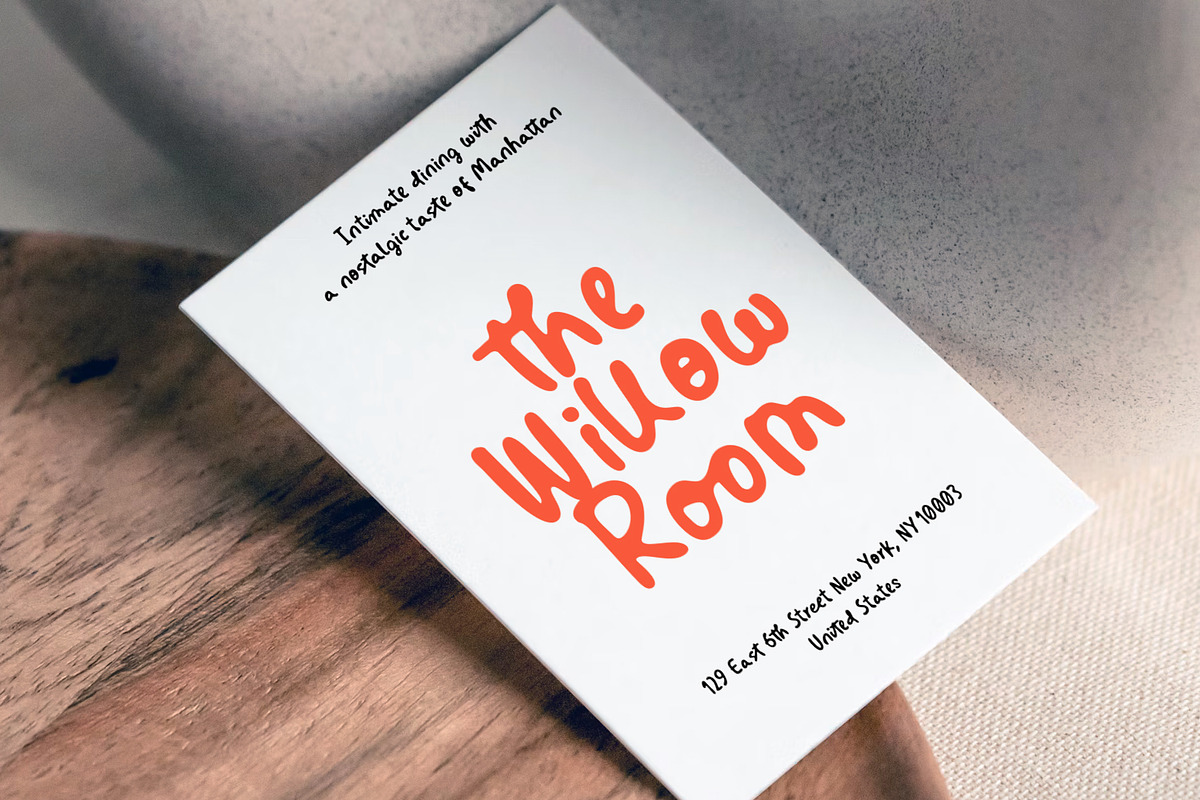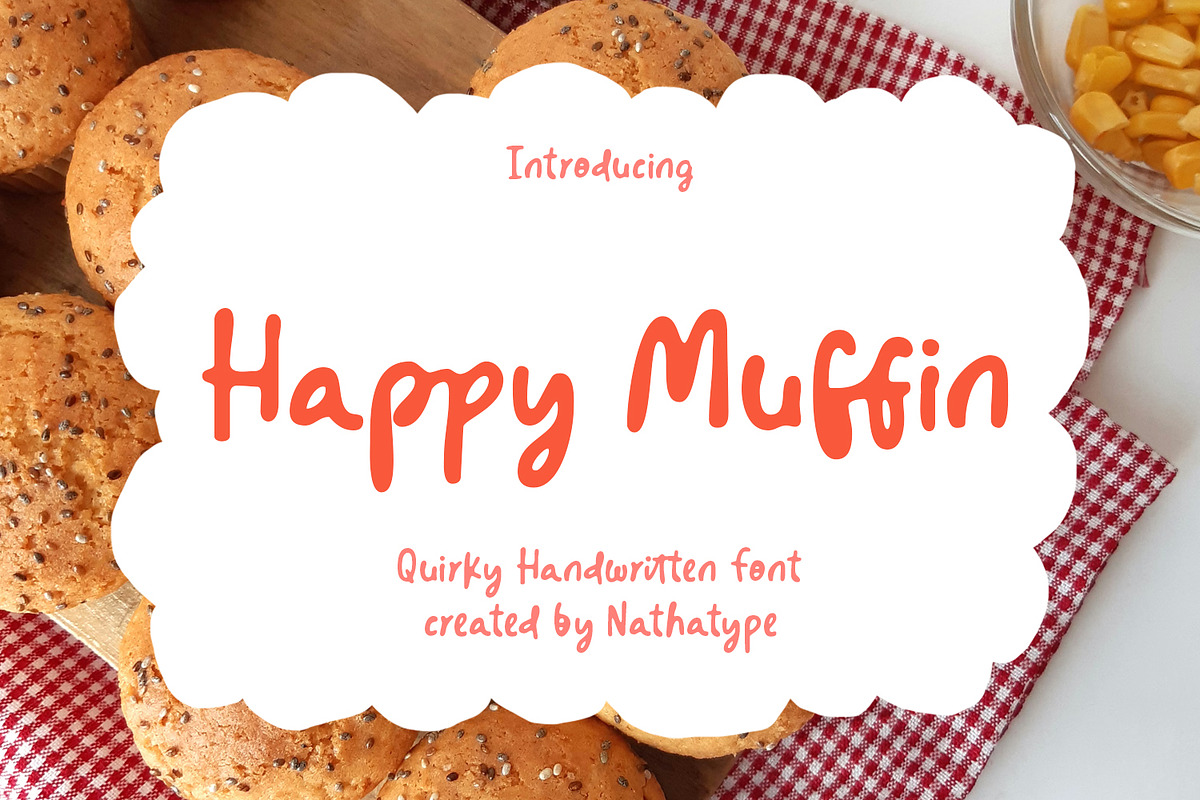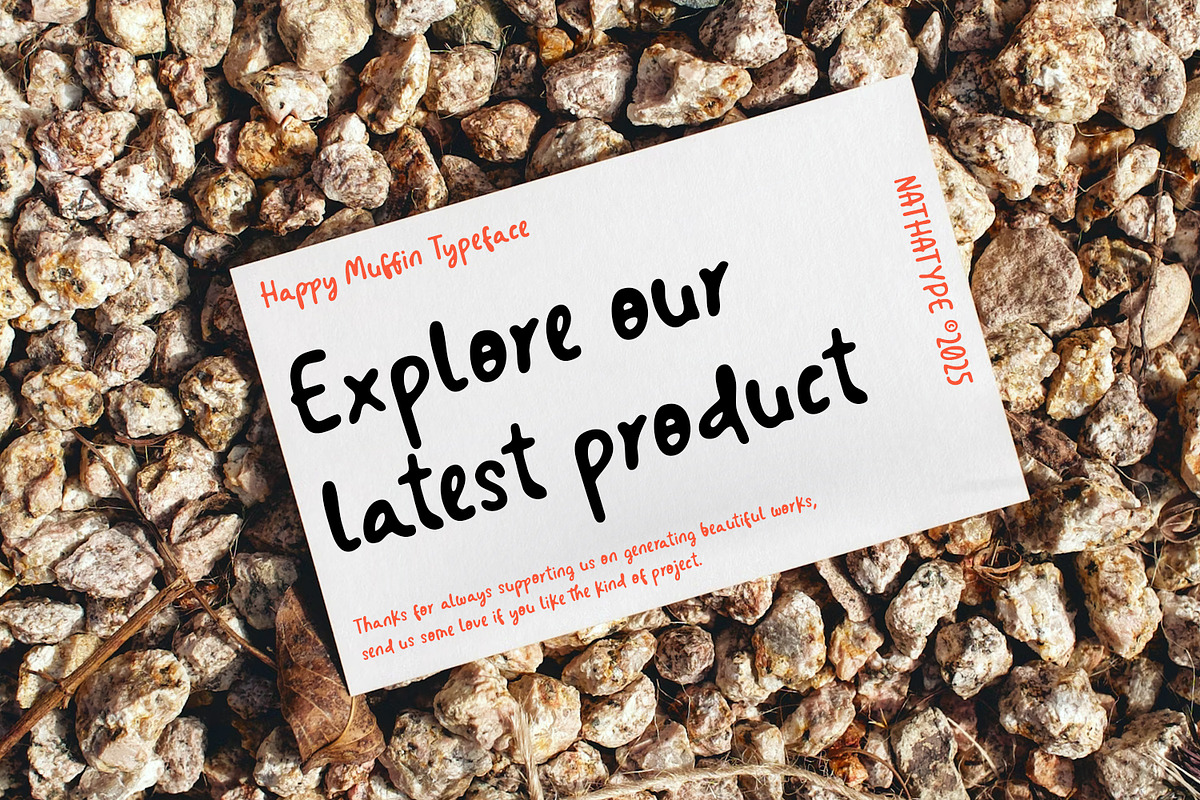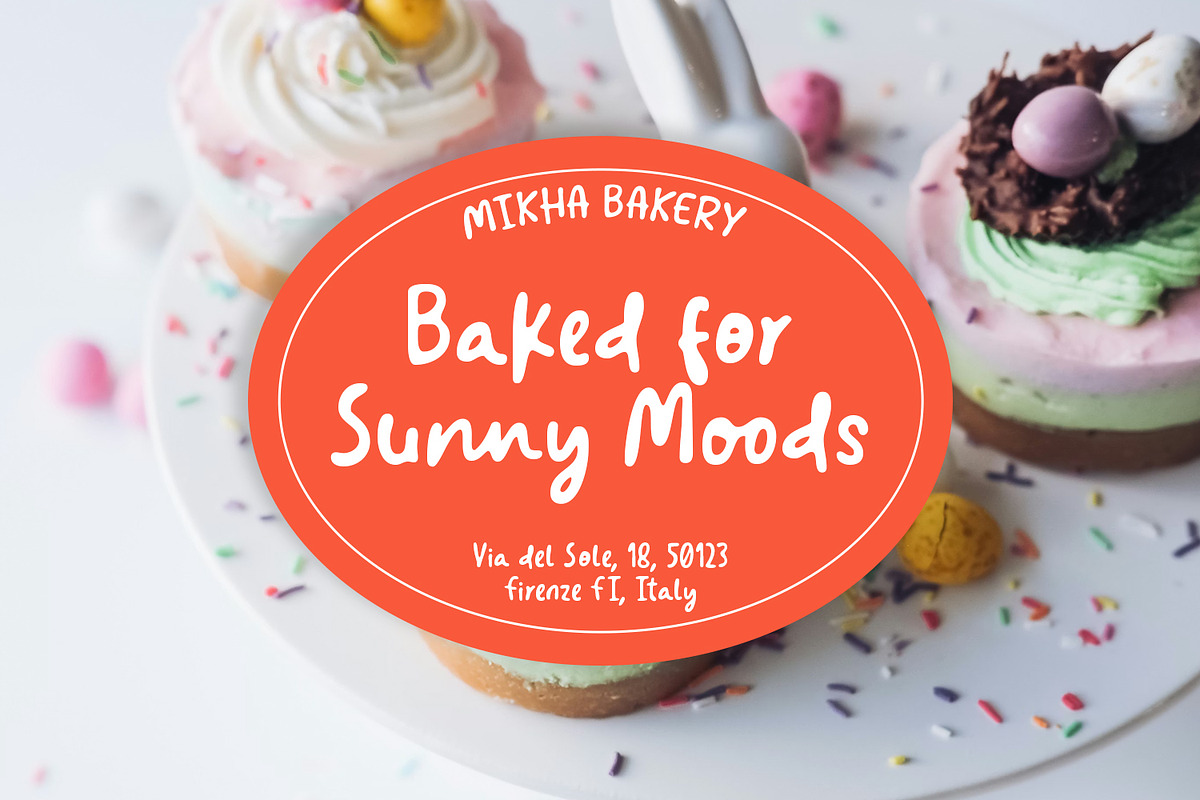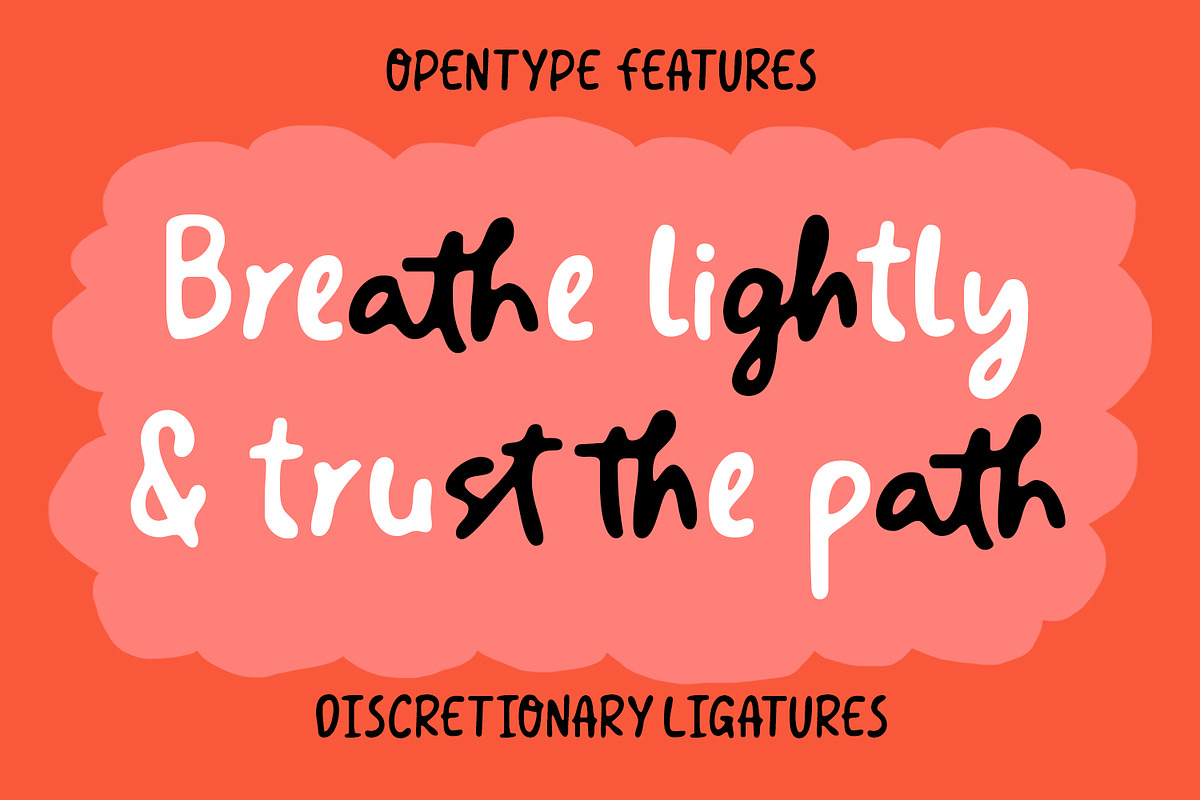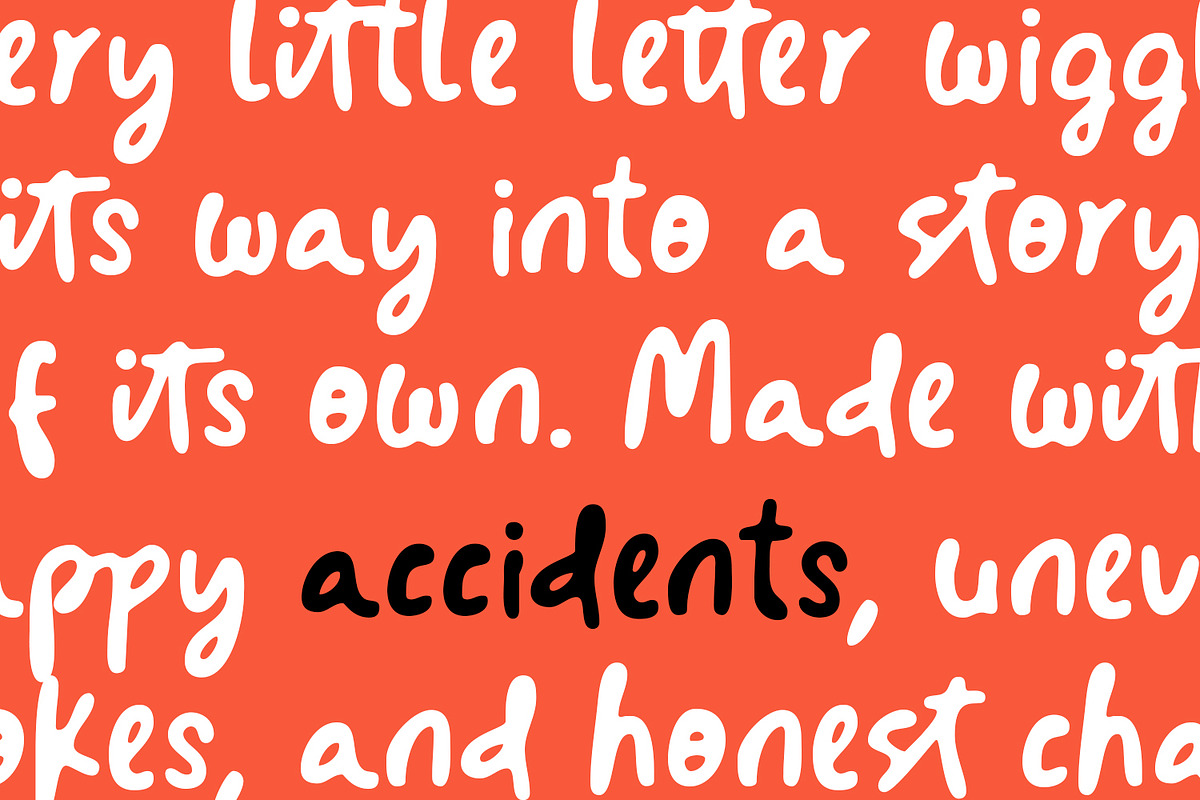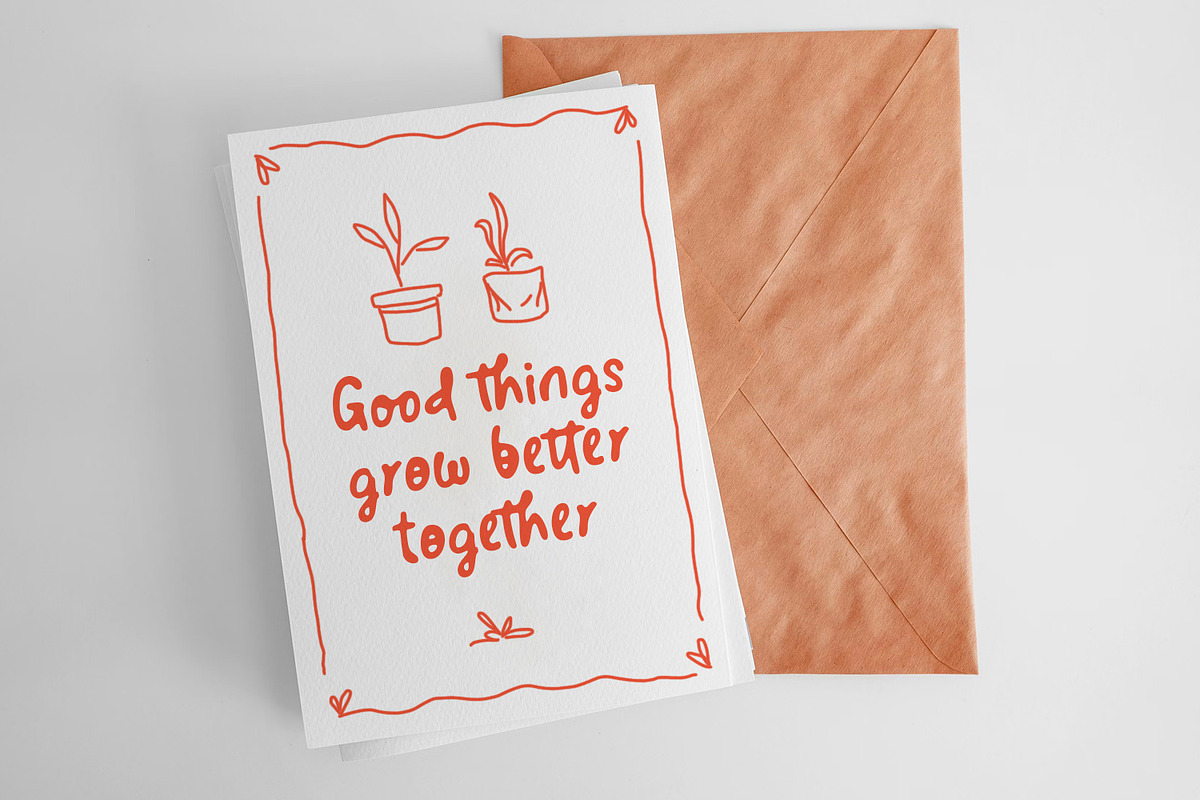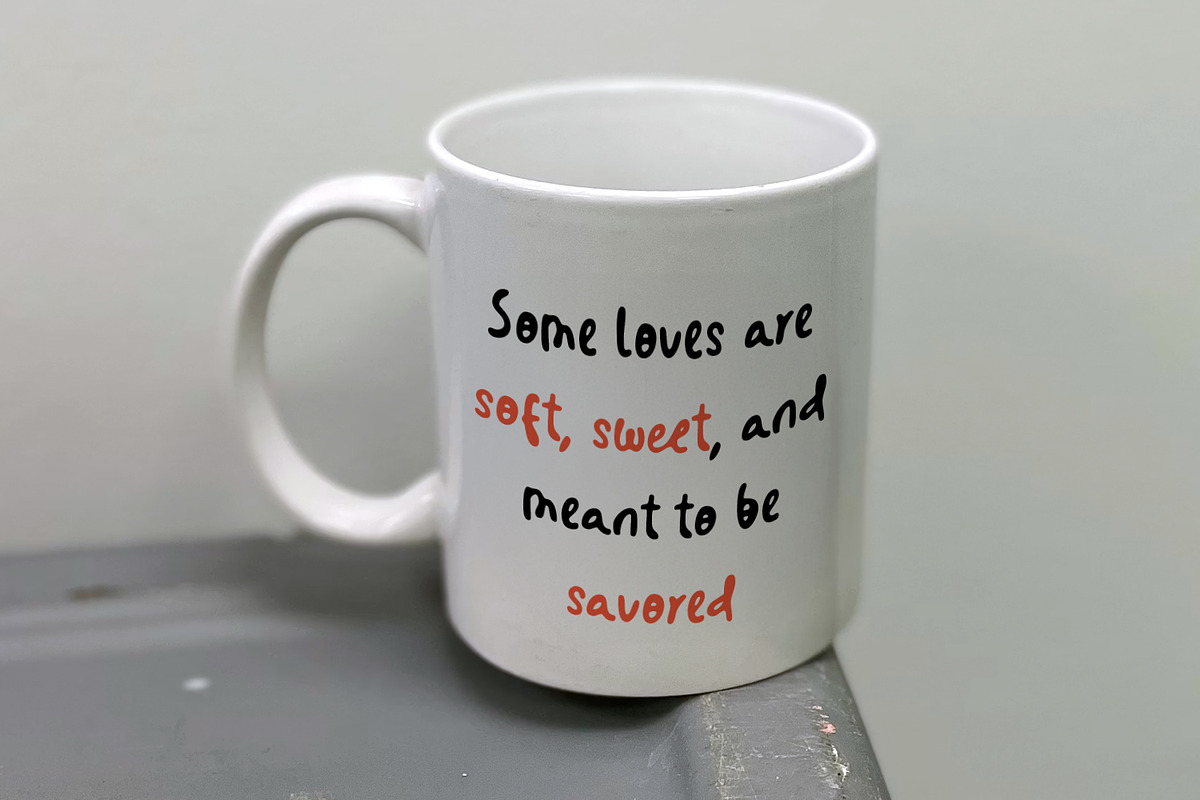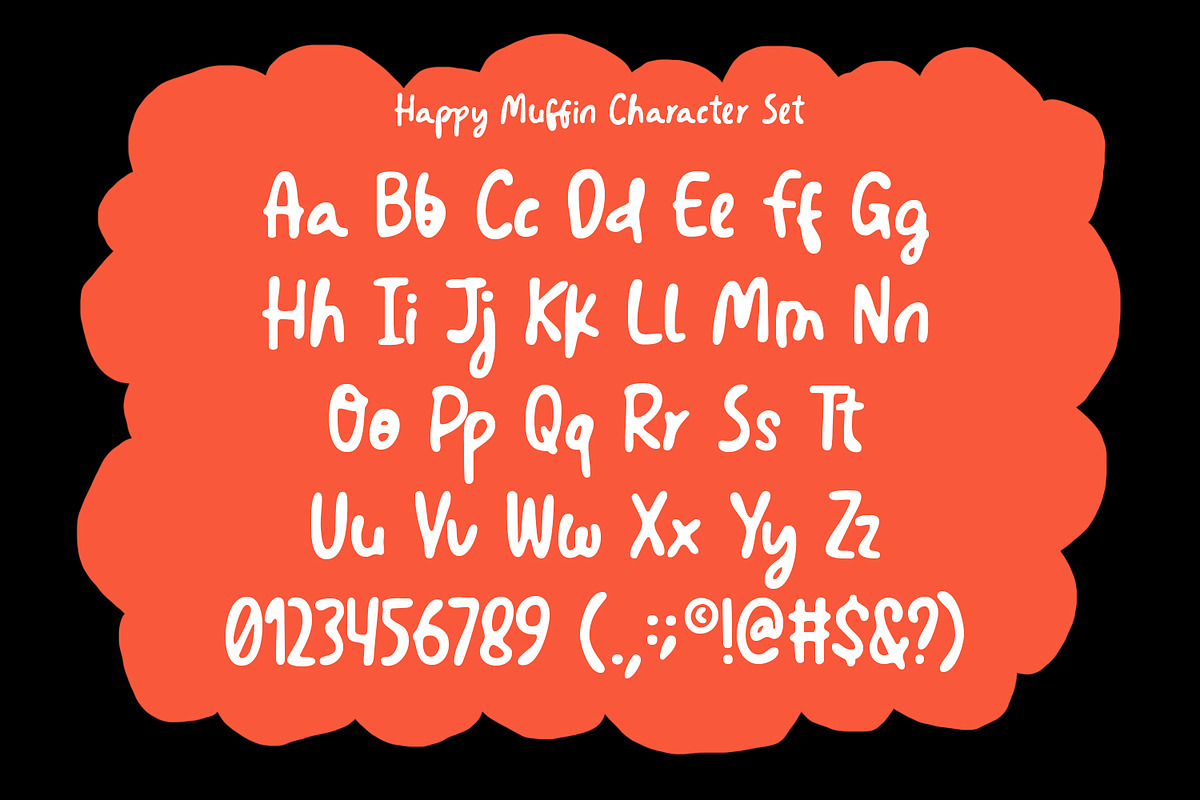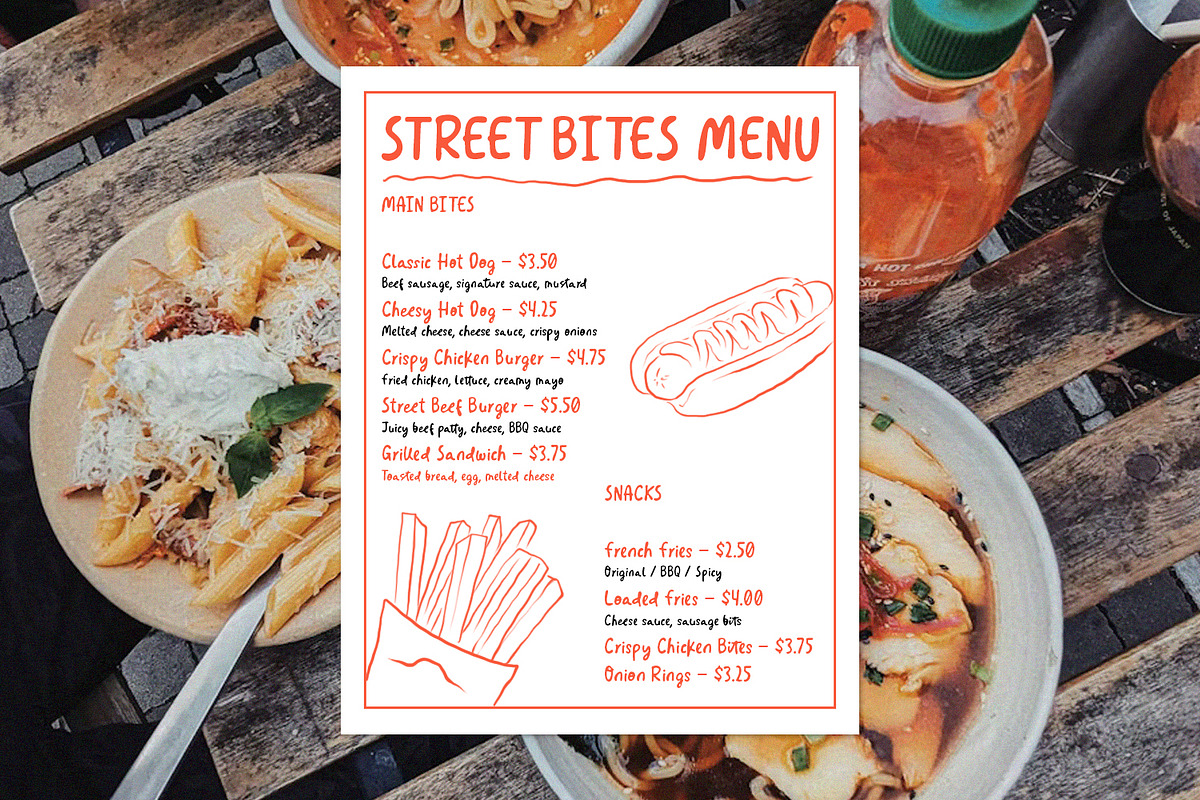
Happy Muffin
Happy Muffin is a delightful handwritten font designed to bring personality, warmth, and a touch of whimsy to your creative projects. The beauty of Happy Muffin lies in its balance. The light stroke weight keeps the design airy and elegant, while the rounded shapes soften every letter, creating a welcoming and approachable aesthetic. The low contrast ensures visual consistency across all characters, making the font easy to read while maintaining its handcrafted appeal. Each letter feels slightly unique, giving your typography an authentic, human touch. In addition, enjoy the features here.
Happy Muffib fits in logos, quotes, branding, posters, and many more designs. Find out more ways to use this font by taking a look at the font preview.